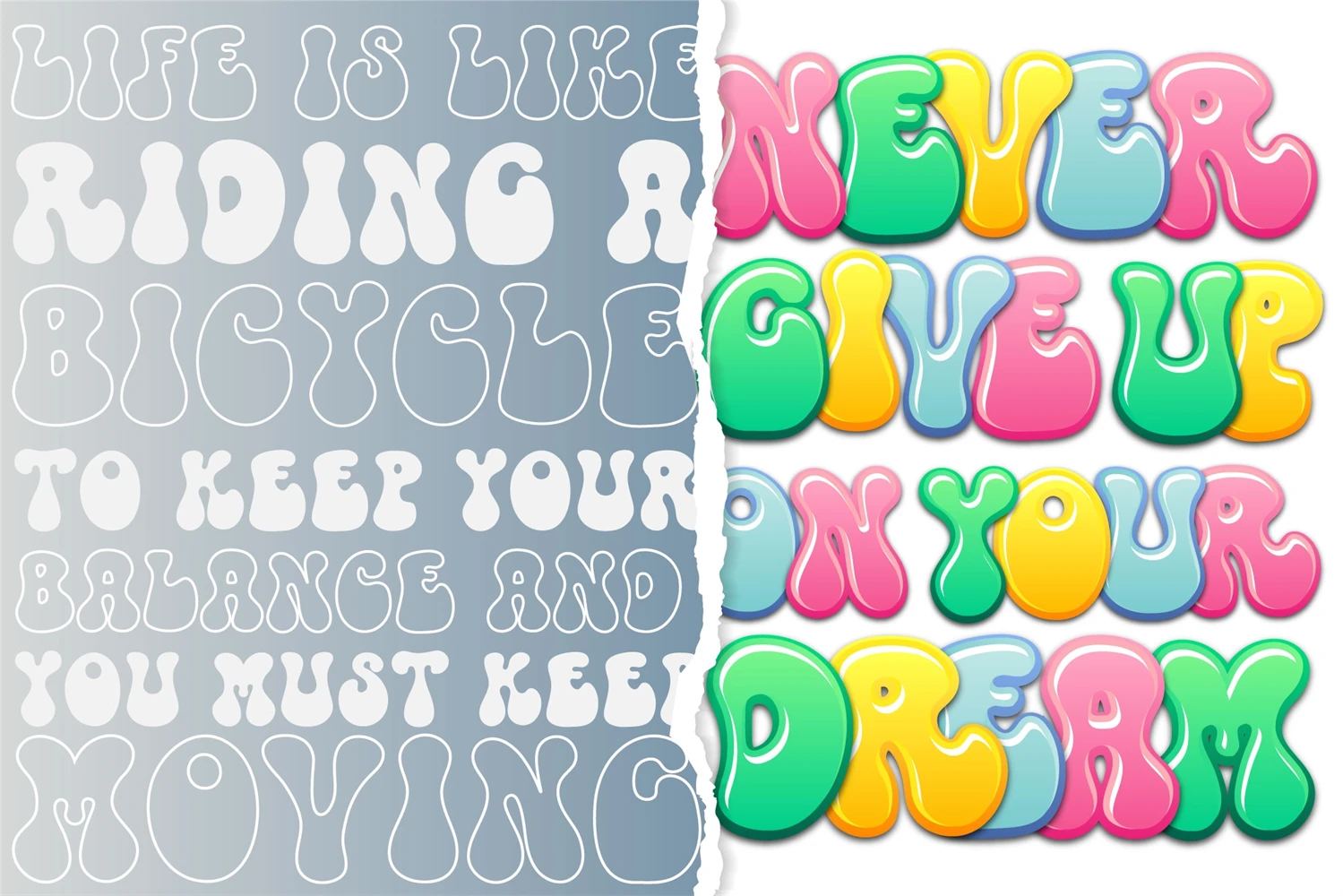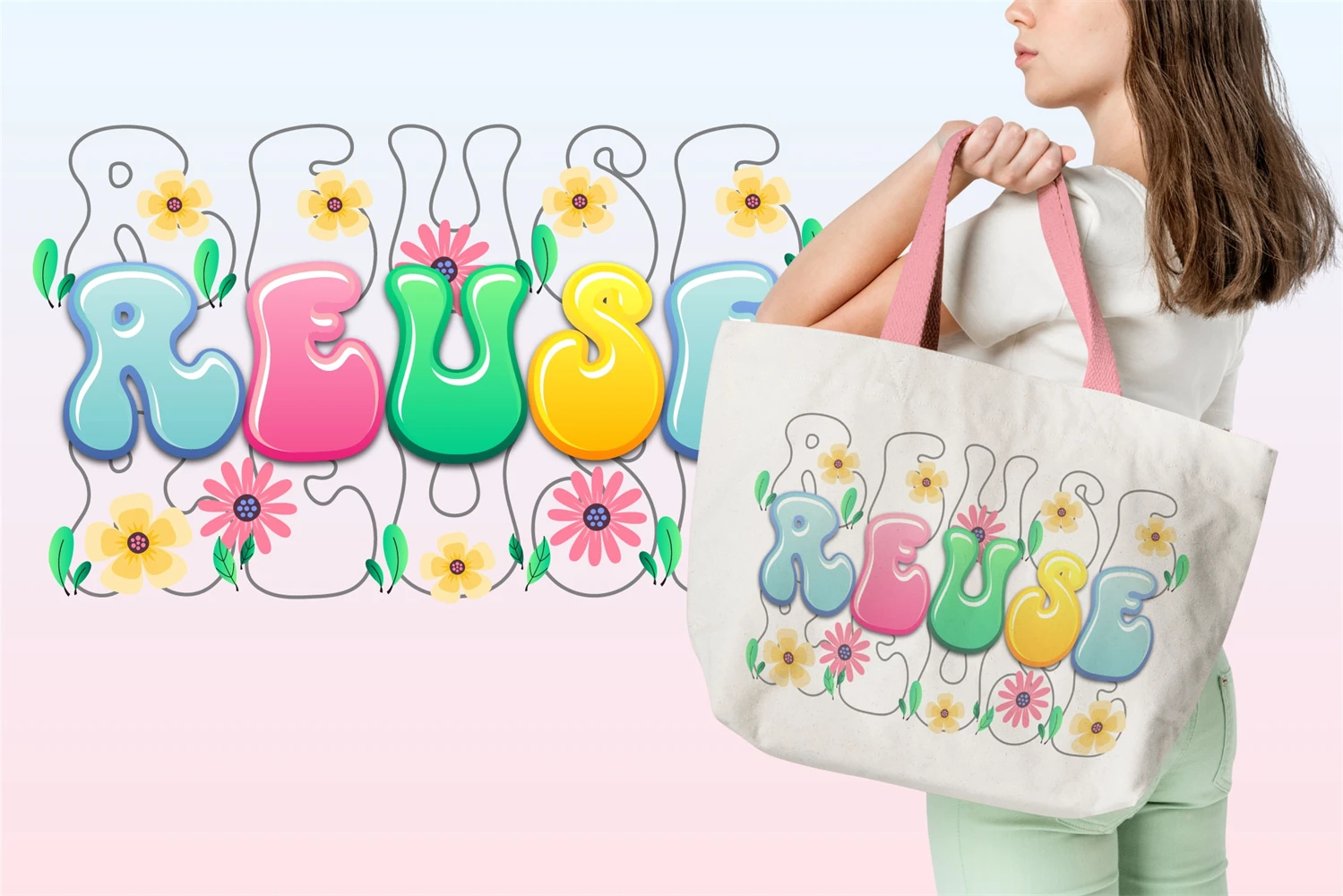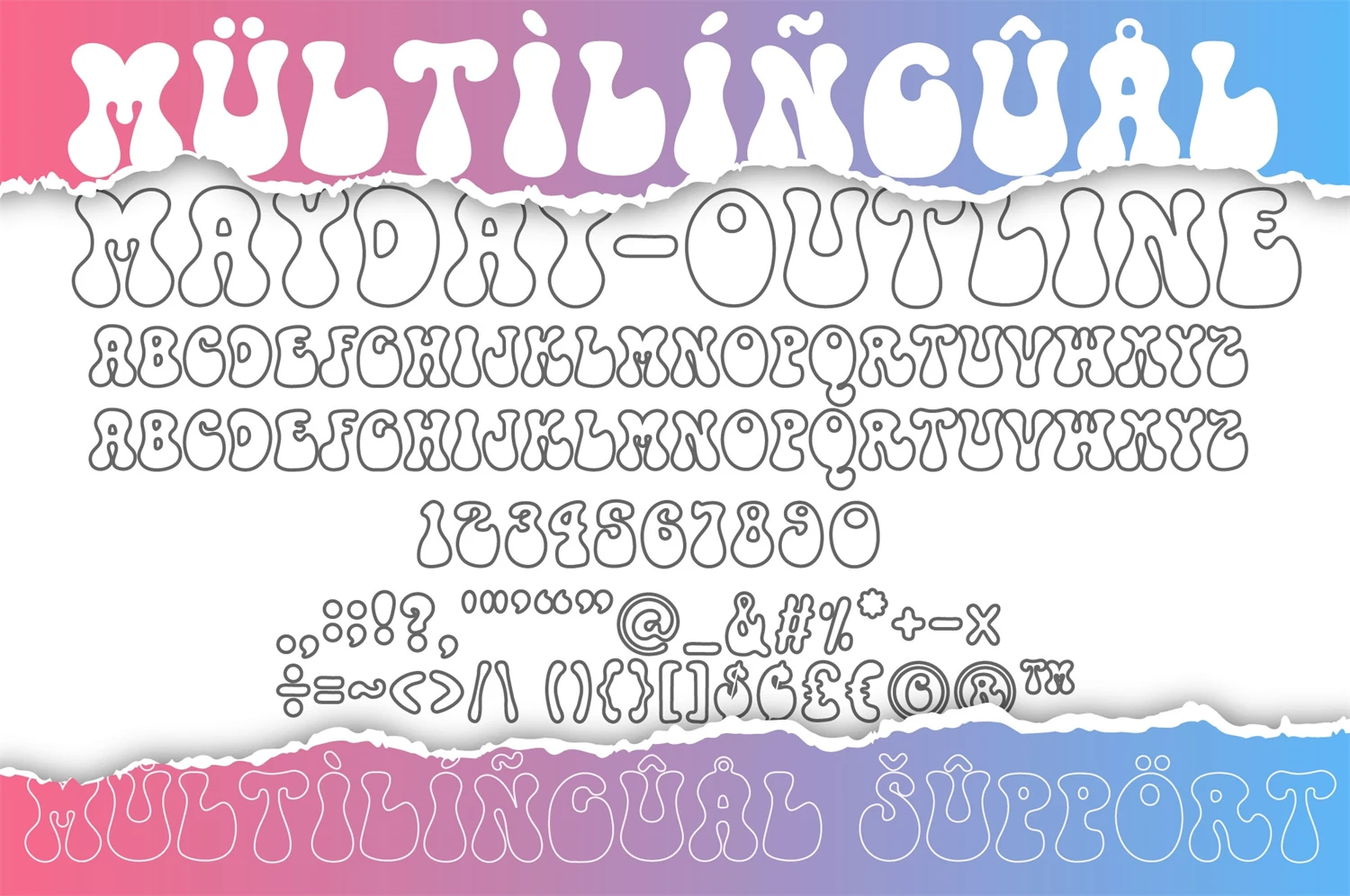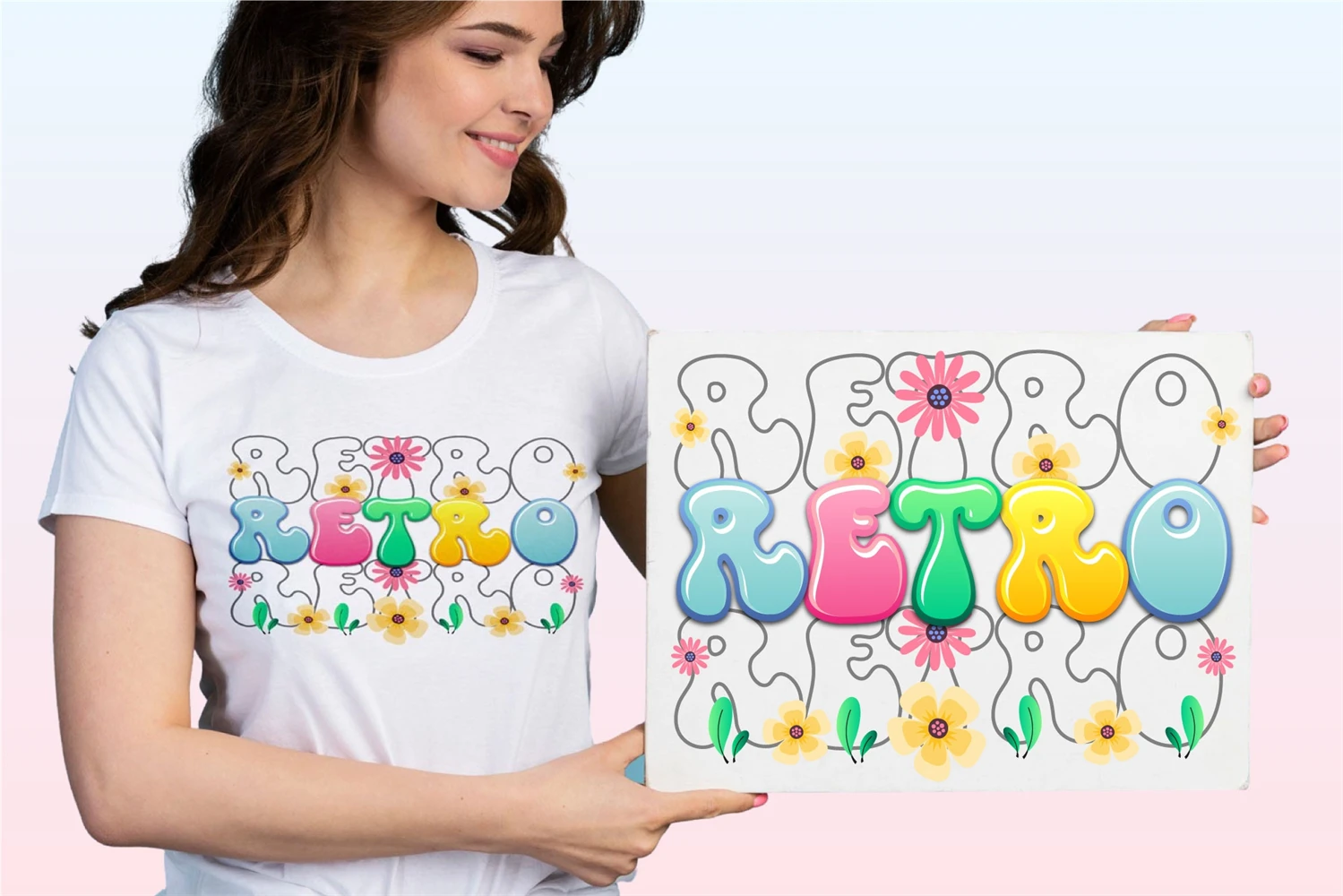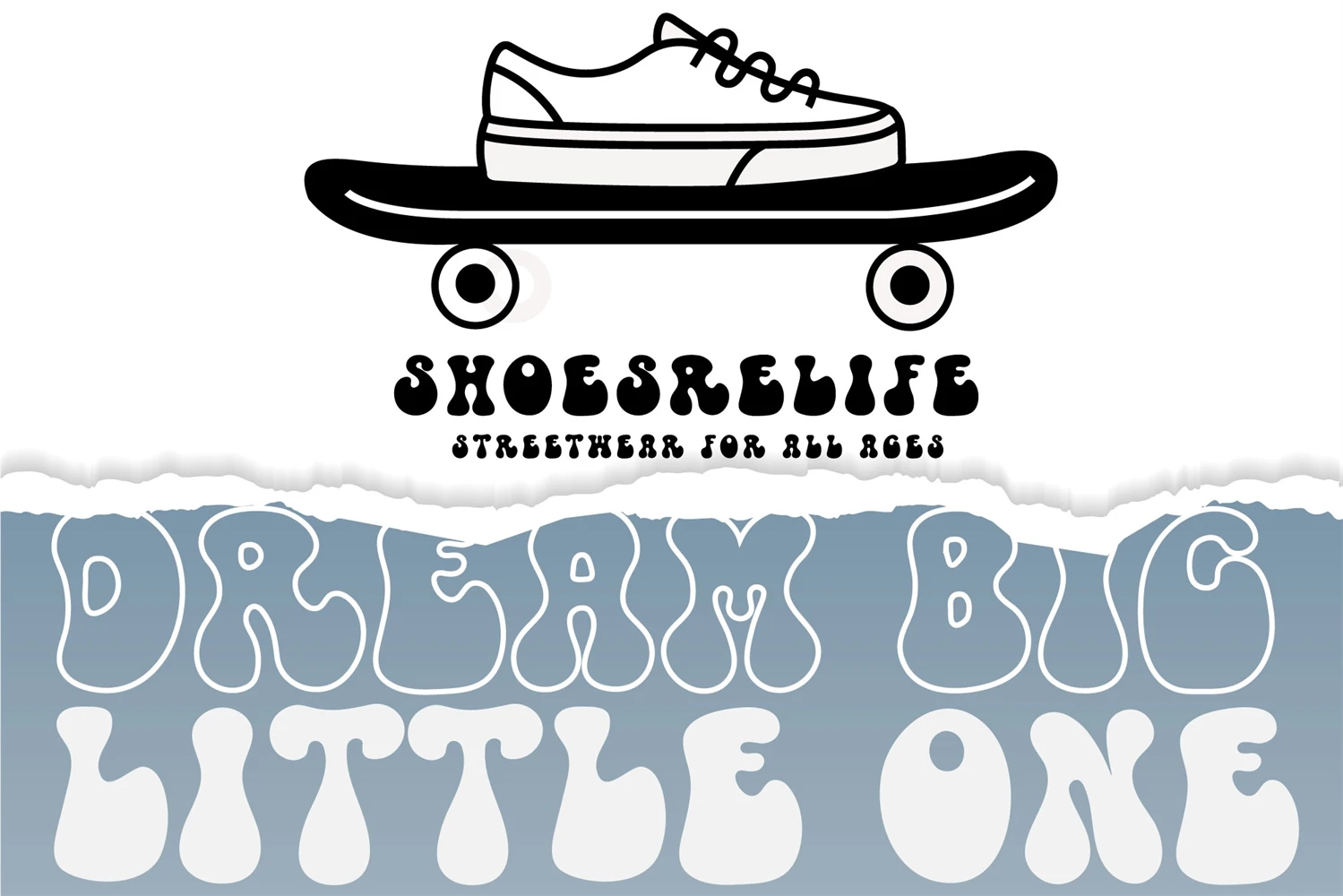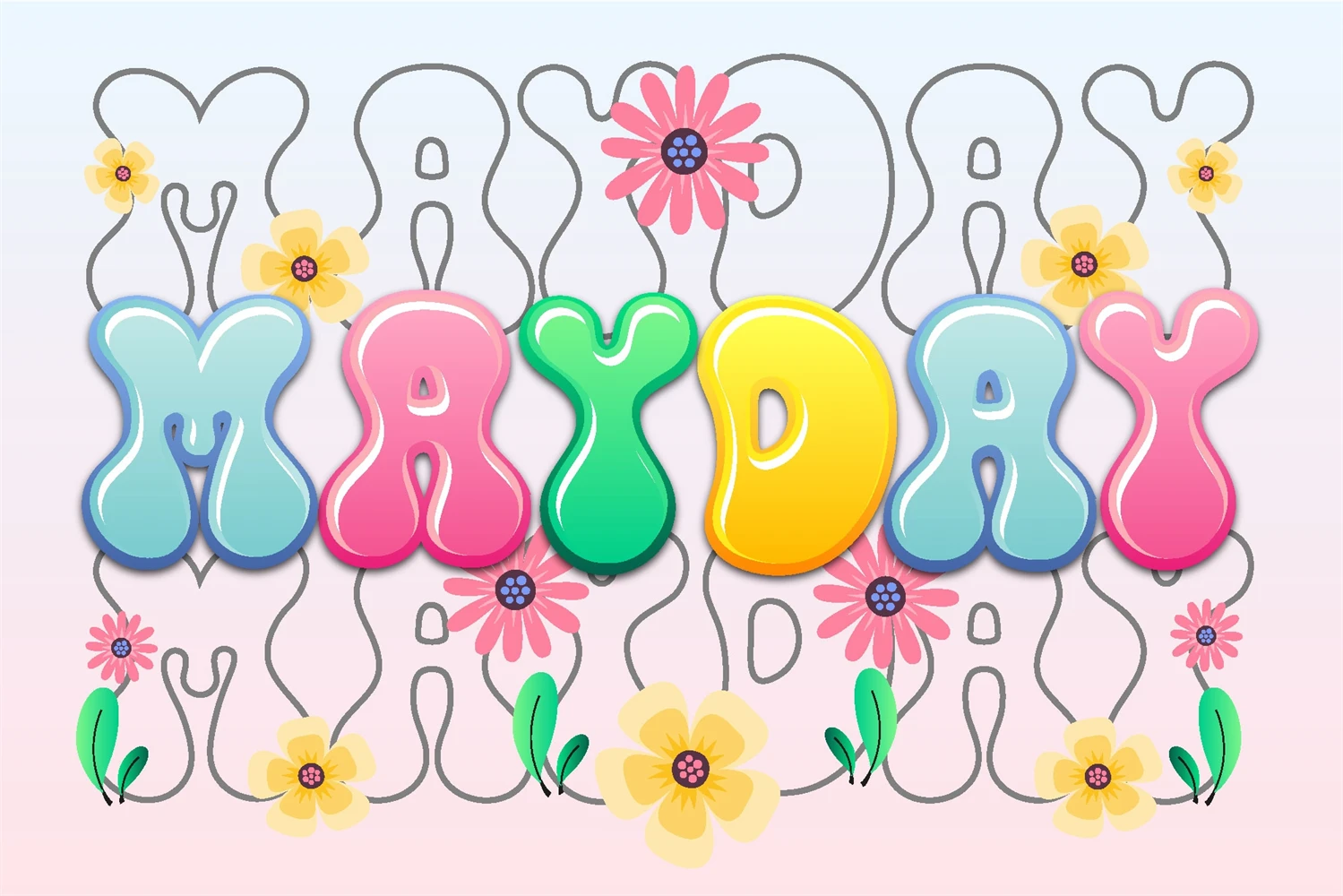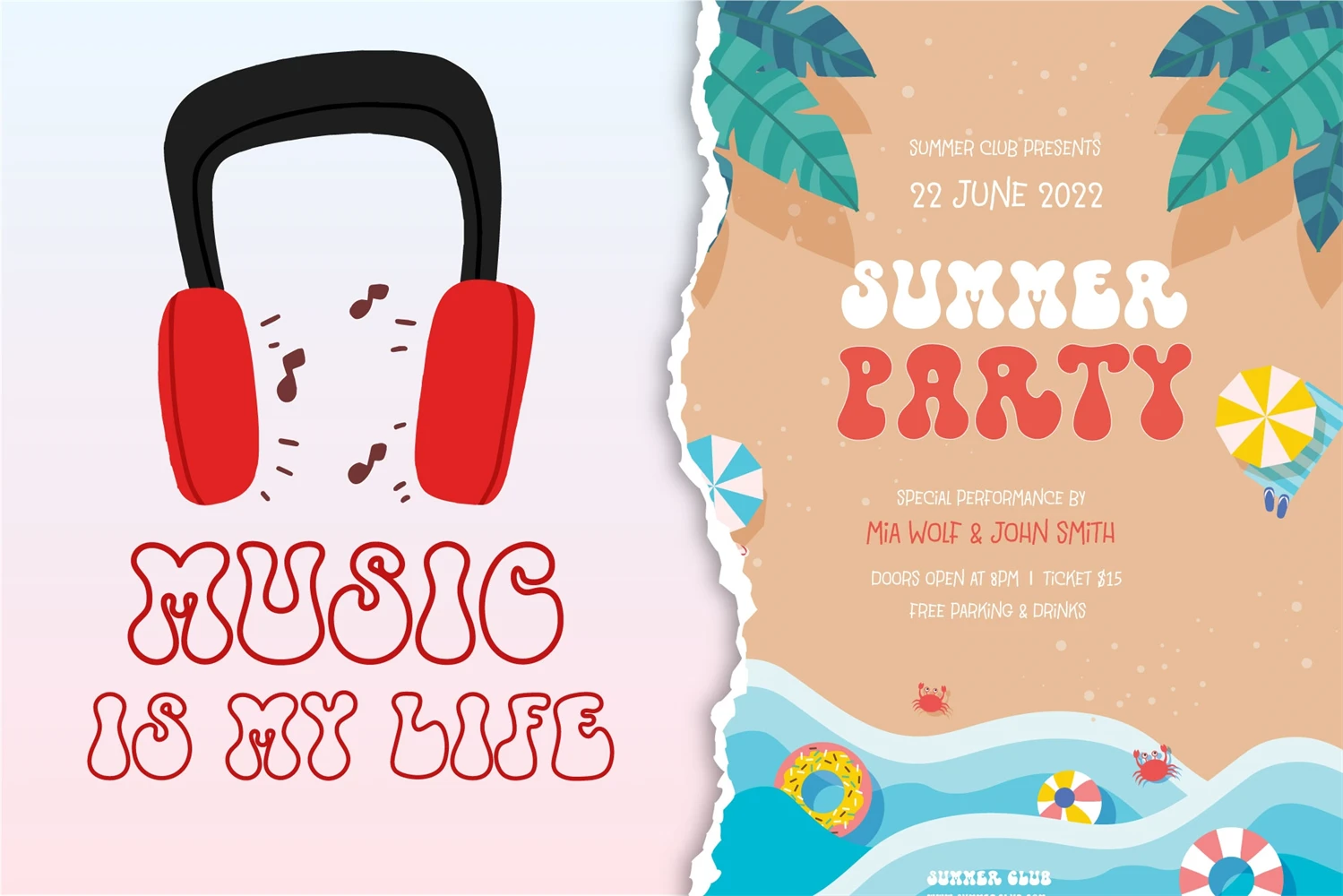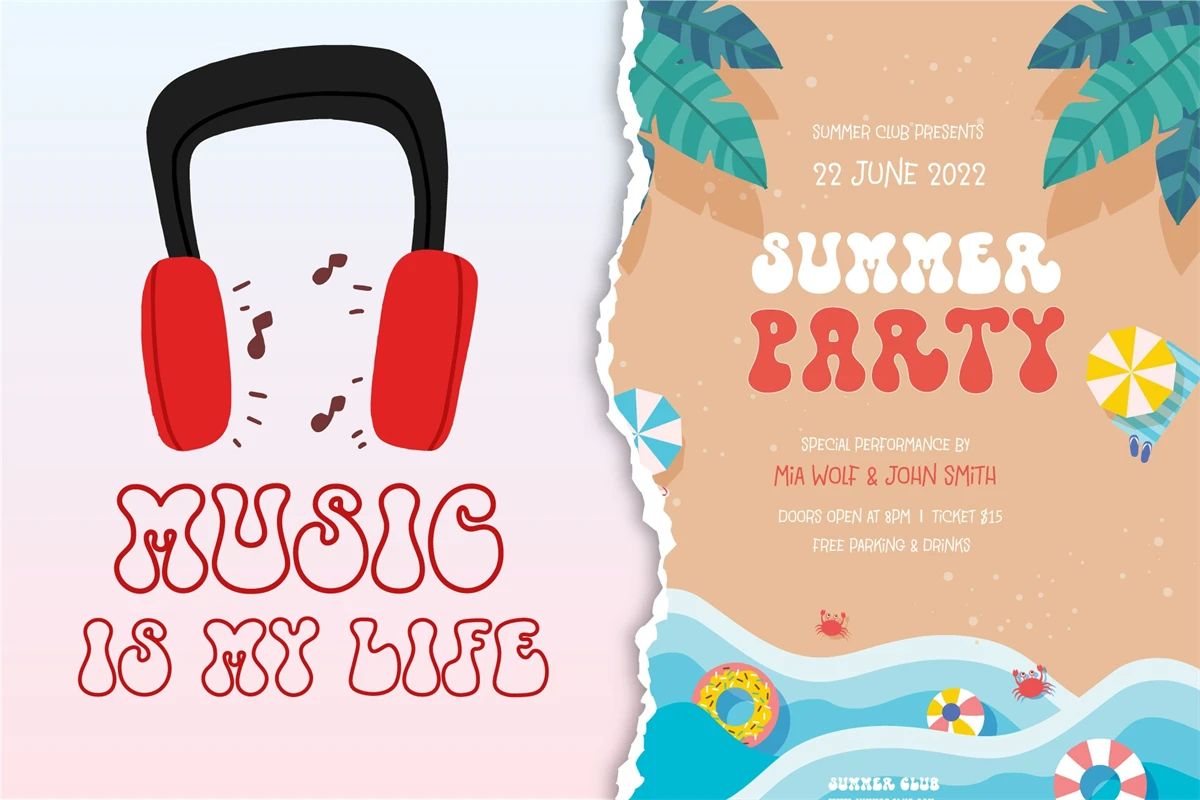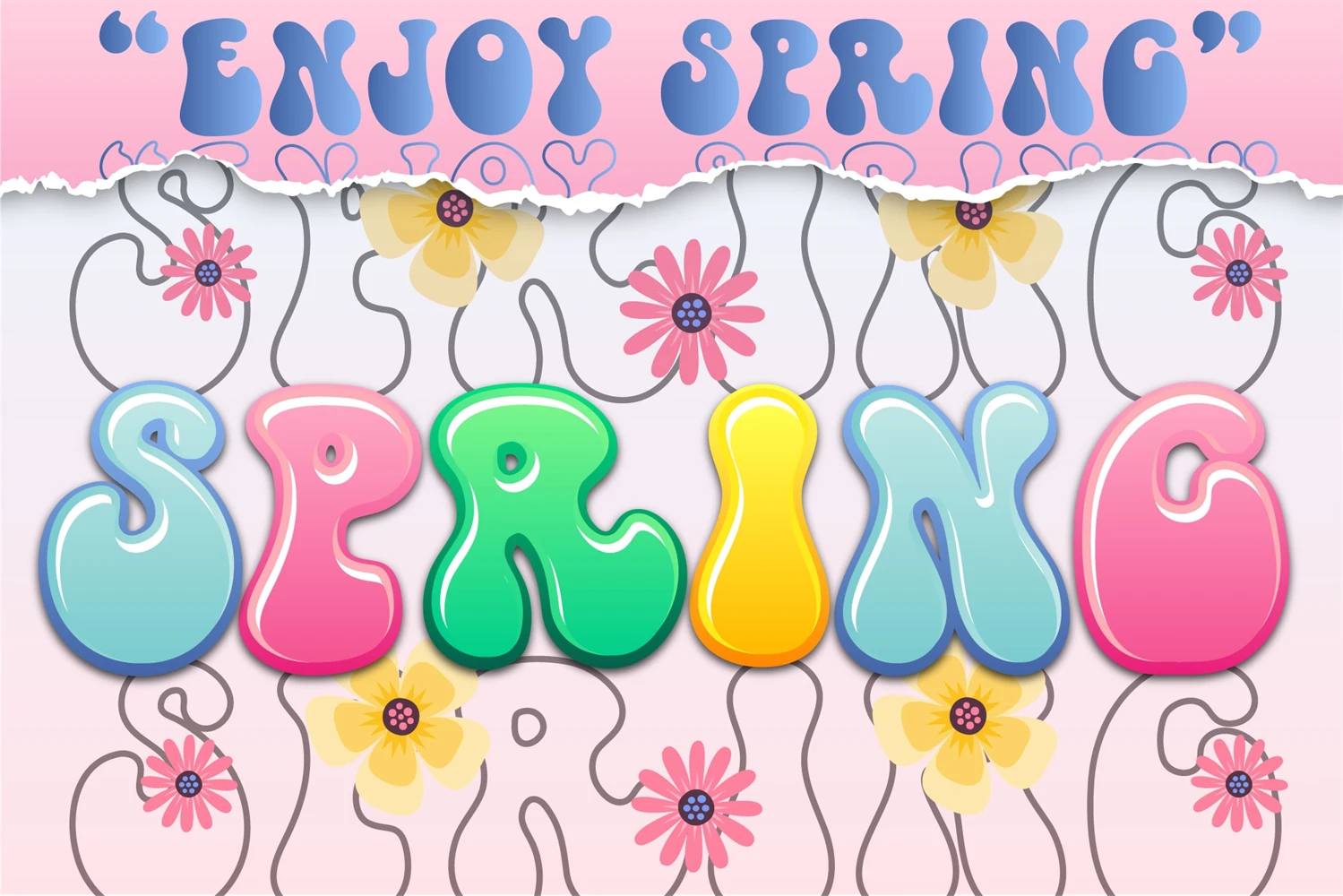
Mayday Font is an exuberant display and color font that will infuse your designs with a vibrant sense of cheerfulness! Perfect for adding a pop of excitement to your projects, Mayday is a versatile typeface that can be used on book covers, posters, spring-themed designs, marketing materials, and more. Its playful and energetic letterforms will captivate your audience and bring your creations to life. Get ready to unleash a wave of joy and creativity with Mayday Font!